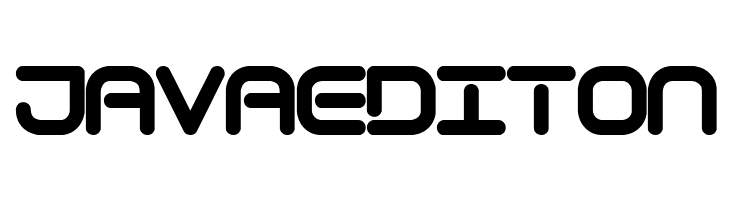
Rustic Revolution Font
- Font: Rustic Revolution
( Fonts by AEnigma - www.aenigmafonts.com )
A futuristic, rounded font with smooth curves and geometric precision.